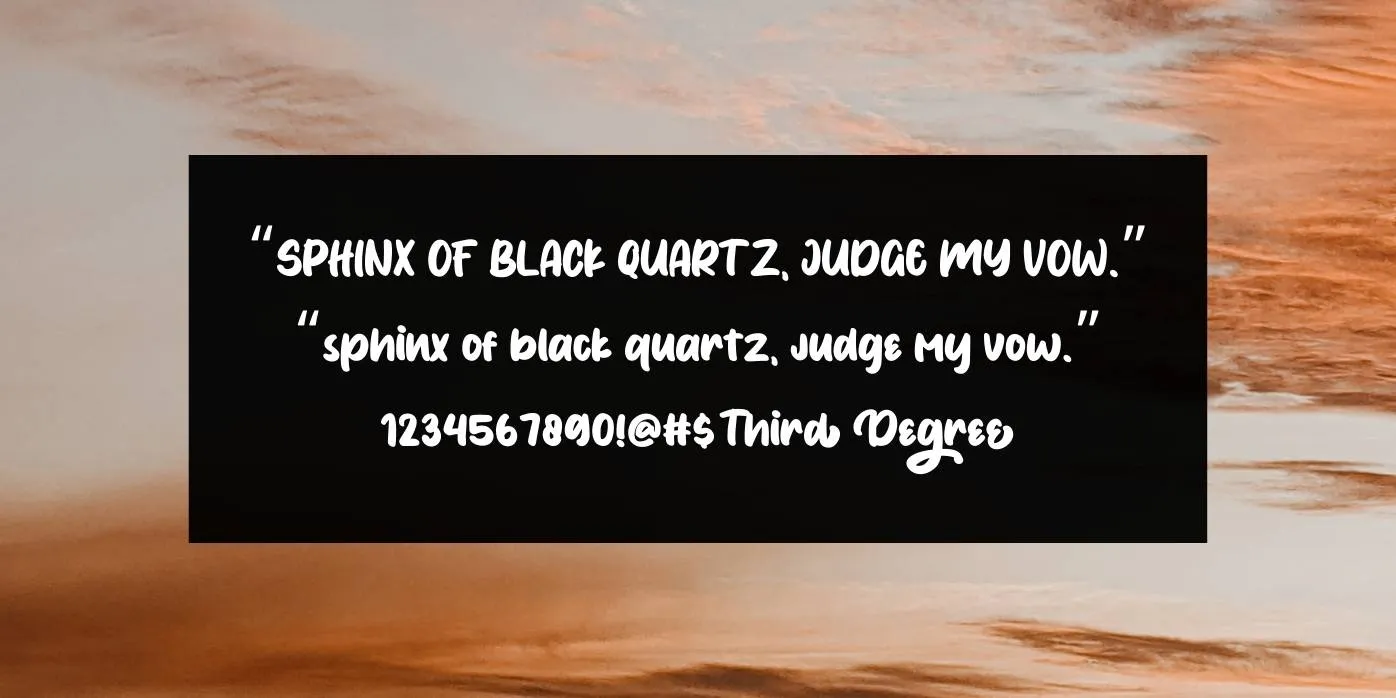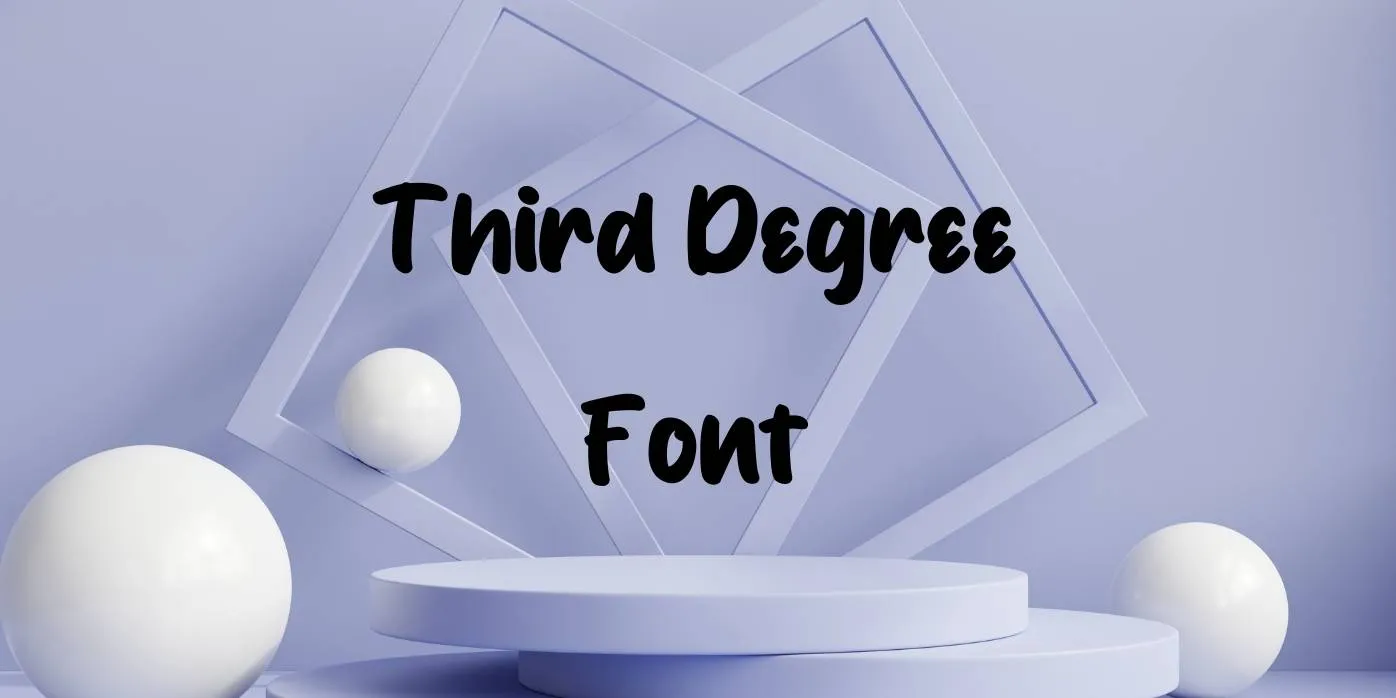
Third Degree Font
Third Degree Font is a brush typeface created by British typeface designer Jonathan Barnbrook. The font is named after the third degree of burns, which are characterized by complete destruction of the epidermis and dermis. This Font was designed to be used for headlines and other display purposes. The alfa slab one Font is a great sans serif typeface and is best for pairing procedures with this typeface.